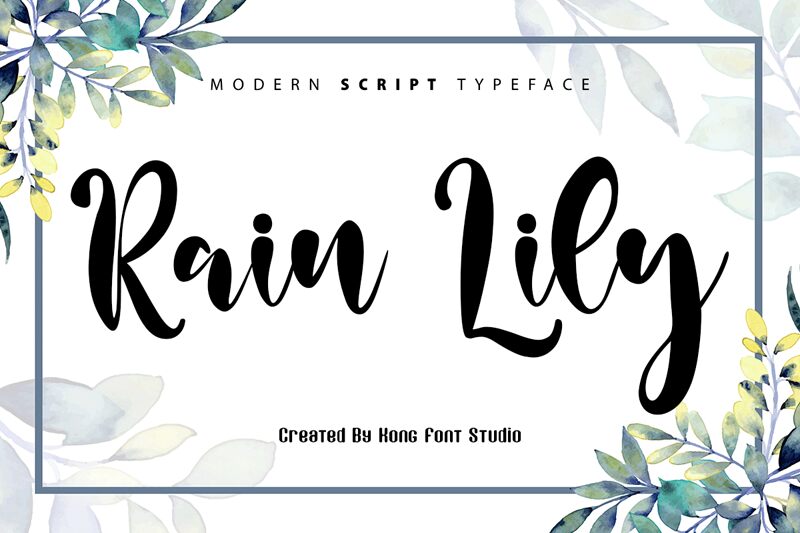
Rain Lily
Rain Lily, the modern script font designed by Kong Font, is a perfect blend of contemporary aesthetics and classic calligraphy. With its semi-condensed width, this font is versatile enough to be used in a variety of creative projects such as wedding invitations, greeting cards, posters, logos and more. Its flowing strokes and elegant curves add a touch of sophistication to any design while maintaining legibility. The Rain Lily font family includes multiple weights ranging from light to bold that can be easily paired for added visual interest. Discover the beauty of Rain Lily for your next project!